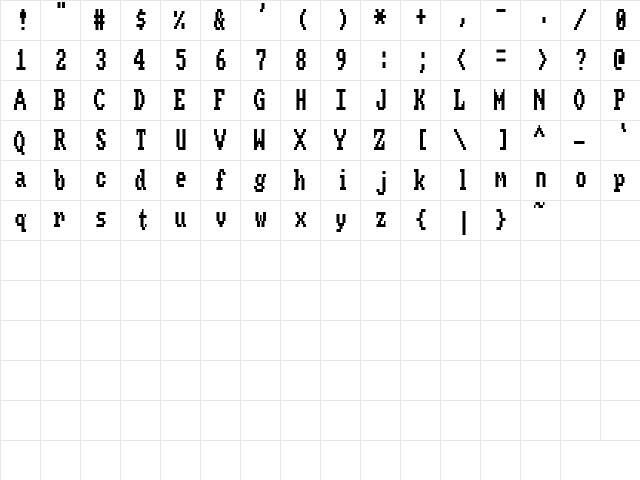
November Regular
Design Context for November Typeface
November takes a measured approach to typography — its balanced proportions and neutral character make it a reliable workhorse for both digital and print work.